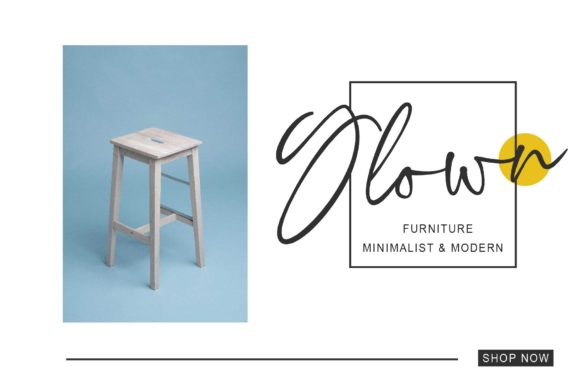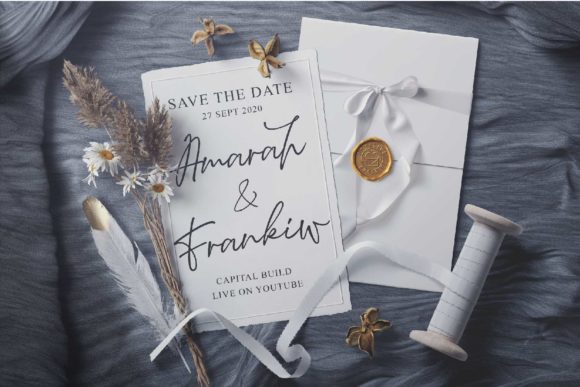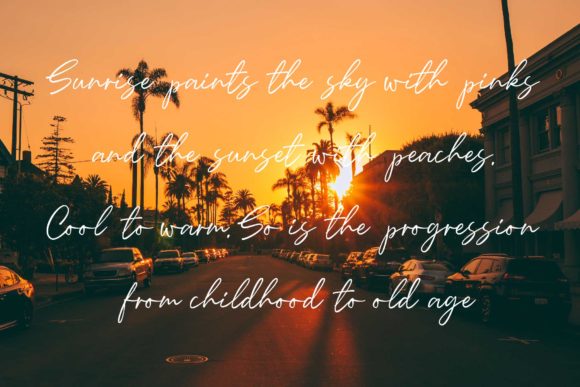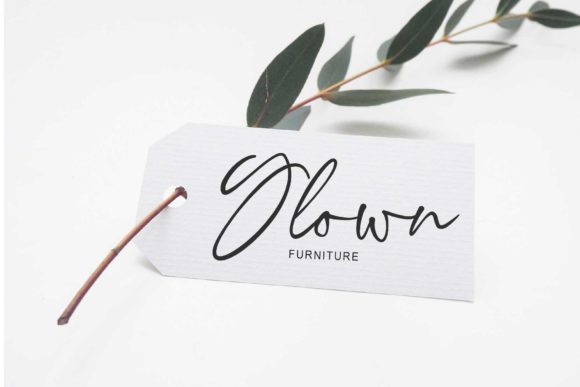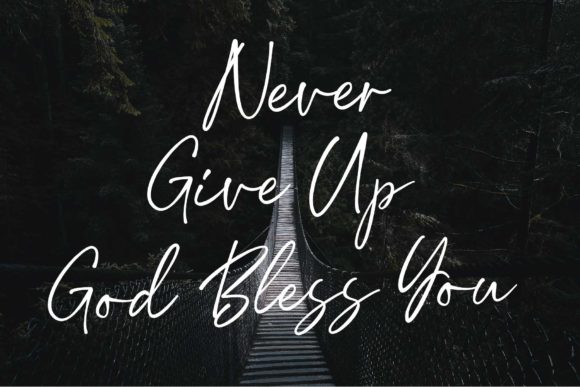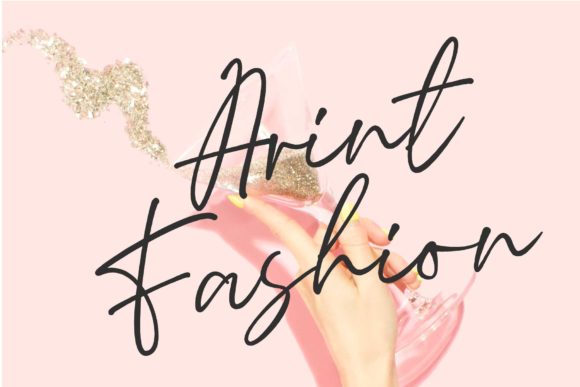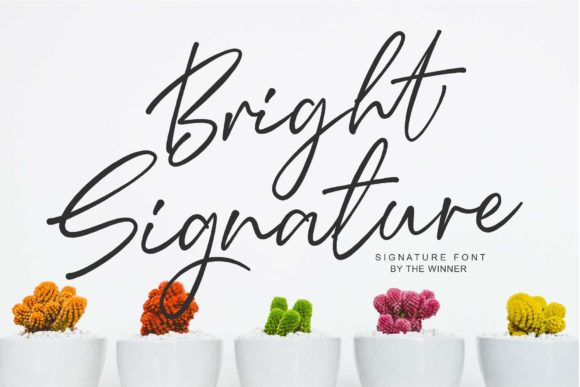
Introducing Bright Signature Font: Elevate Your Designs with a Unique Handwritten Touch
Are you tired of using the same old fonts in your designs? Do you want to add a personal touch that sets your work apart from the rest? Look no further than Bright Signature Font, a relaxed and unique handwritten font that’s sure to bring your designs to life. With its distinctive and beautiful touch, this font is perfect for designers and crafters looking to add a touch of personality to their projects.
The Unique Charm of Bright Signature Font
Bright Signature Font is a one-of-a-kind handwritten font that boasts a unique charm that’s hard to find in other fonts. Every letter has been carefully crafted to have its own distinct personality, making it perfect for adding a personal touch to your designs. Whether you’re working on a logo, a poster, or a digital project, this font is sure to make your design stand out from the crowd.
Key Features of Bright Signature Font
- Relaxed and Unique: Bright Signature Font has a relaxed and unique feel that’s perfect for designs that need a personal touch.
- Handwritten with Love: Every letter has been carefully handwritten to give it a beautiful and distinctive touch.
- Perfect for Designers and Crafters: This font is ideal for designers and crafters who want to add a touch of personality to their projects.
- Pair it with Other Fonts: Bright Signature Font pairs well with other fonts, making it perfect for designs that need a mix of fonts.
- Use it for Headings and Titles: This font is perfect for headings and titles, where its unique charm can really shine.
- Add it to Your Digital Projects: Bright Signature Font is perfect for digital projects, such as social media graphics, blog posts, and more.
- Adds a Personal Touch: This font adds a personal touch to your designs, making them stand out from the crowd.
- Increases Readability: Bright Signature Font is easy to read, making it perfect for designs that need to communicate a message.
- Versatile: This font is versatile and can be used in a variety of designs, from logos to digital projects.
| Font Name | Bright Signature Font |
| Author | The1stWinner |